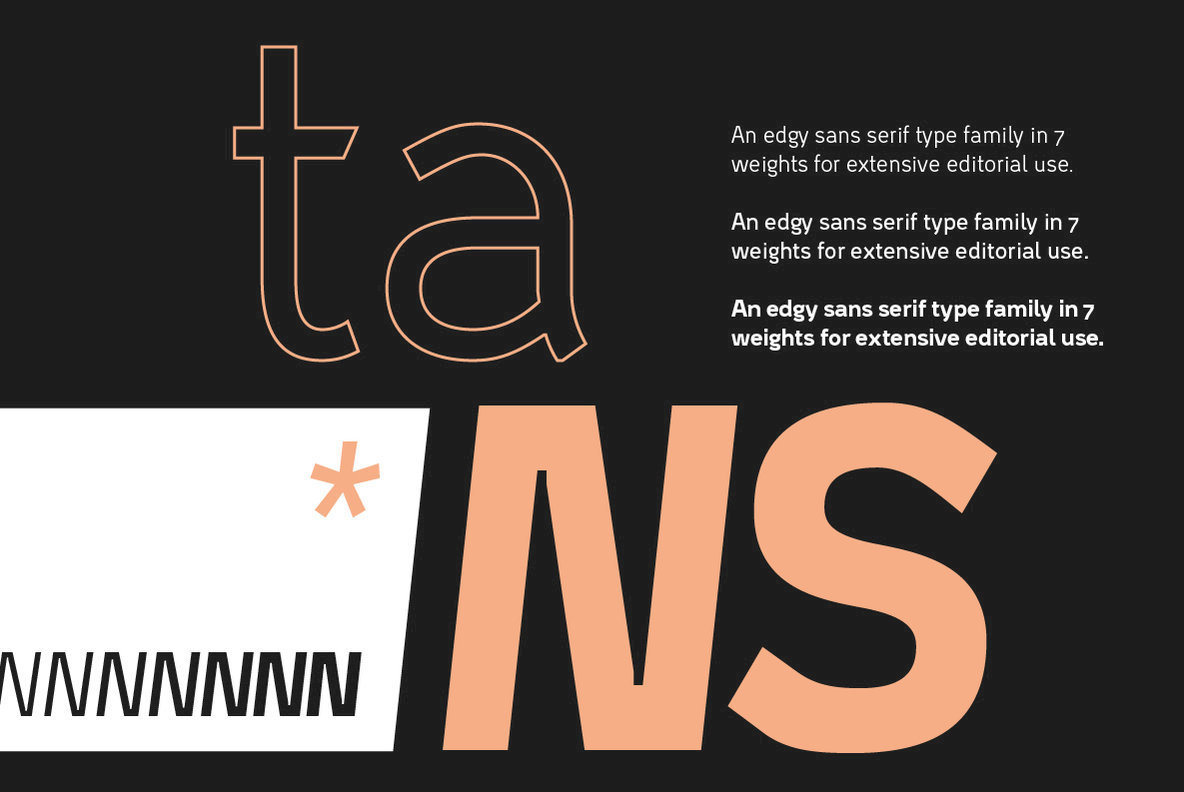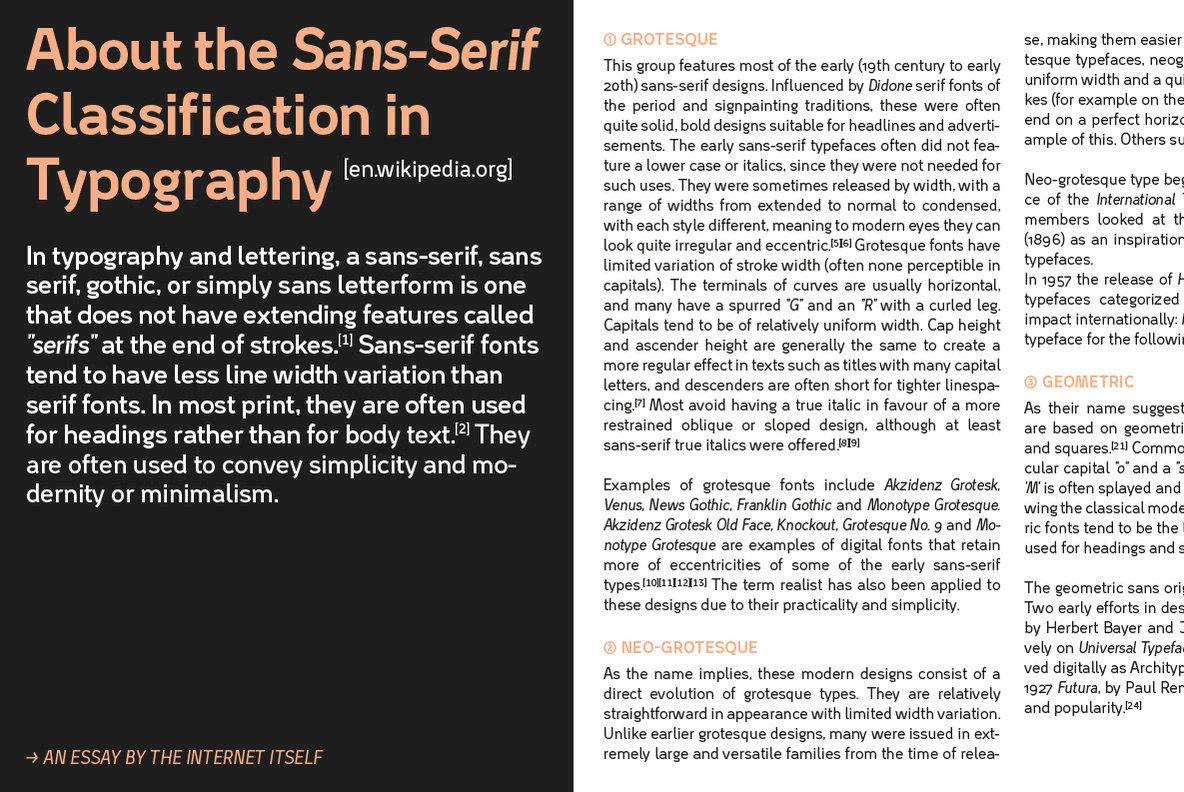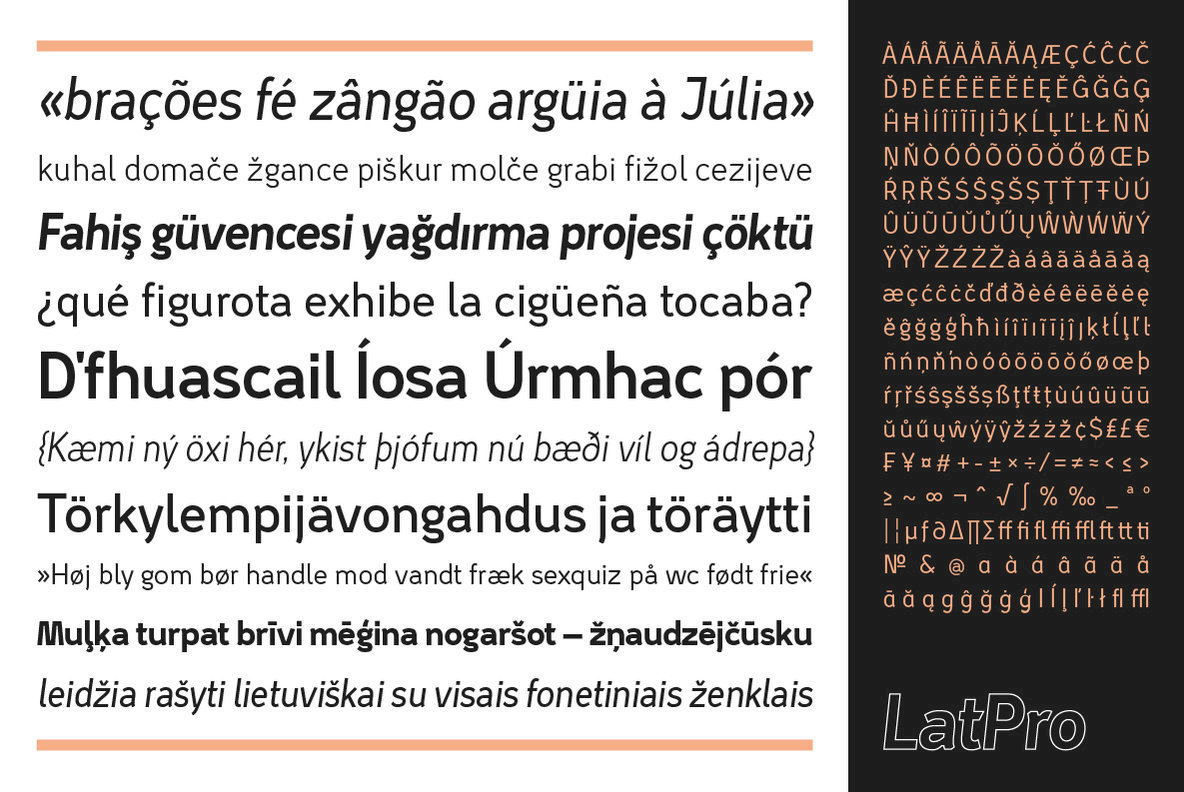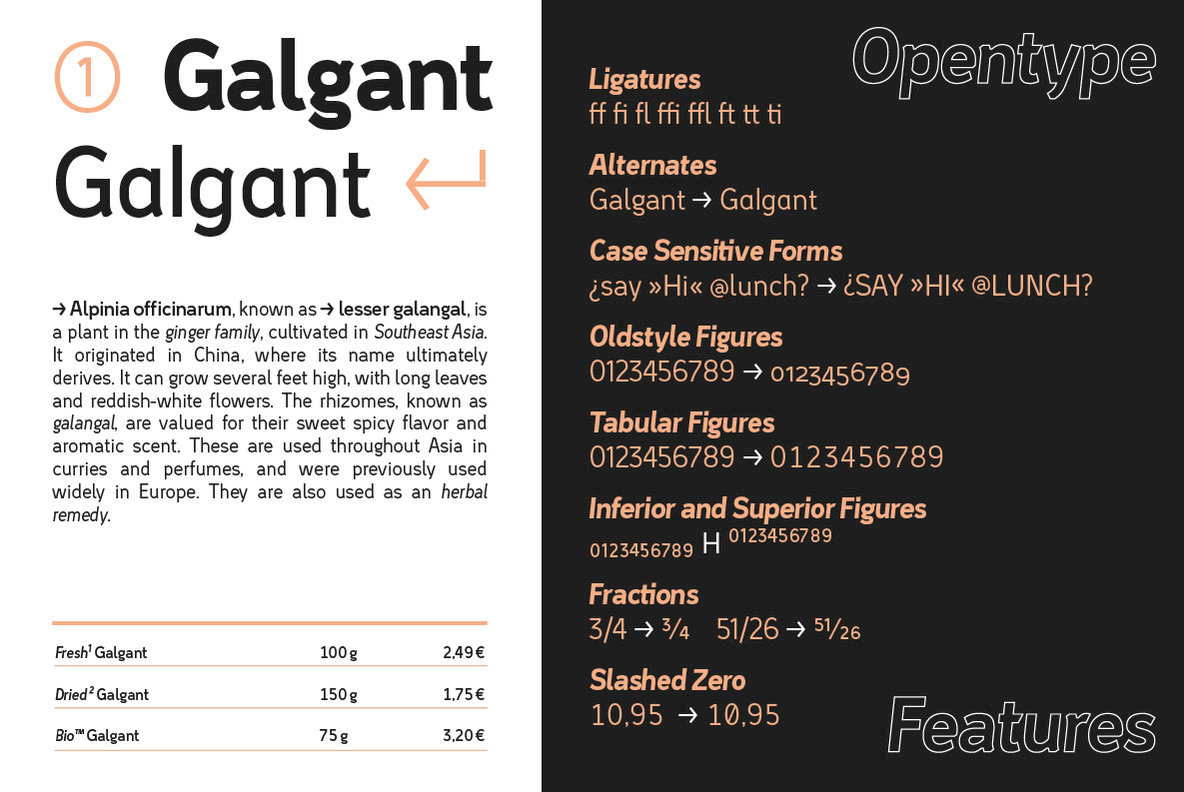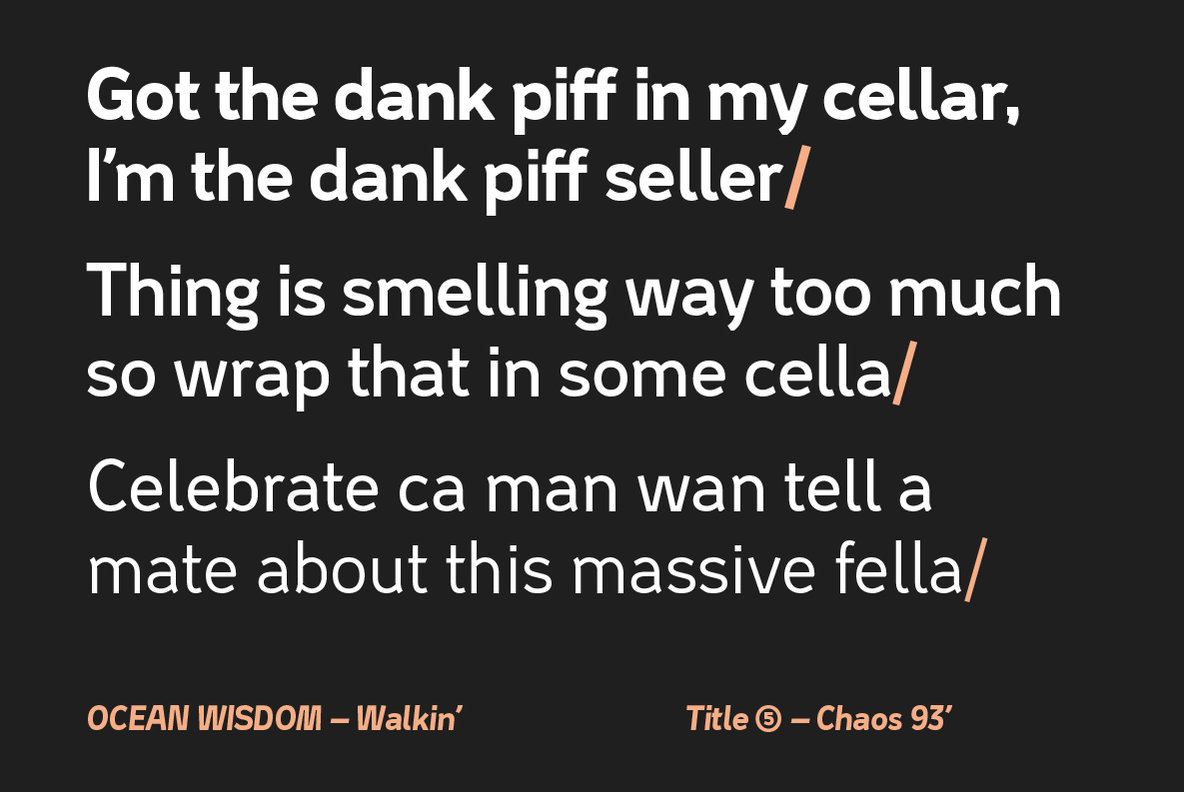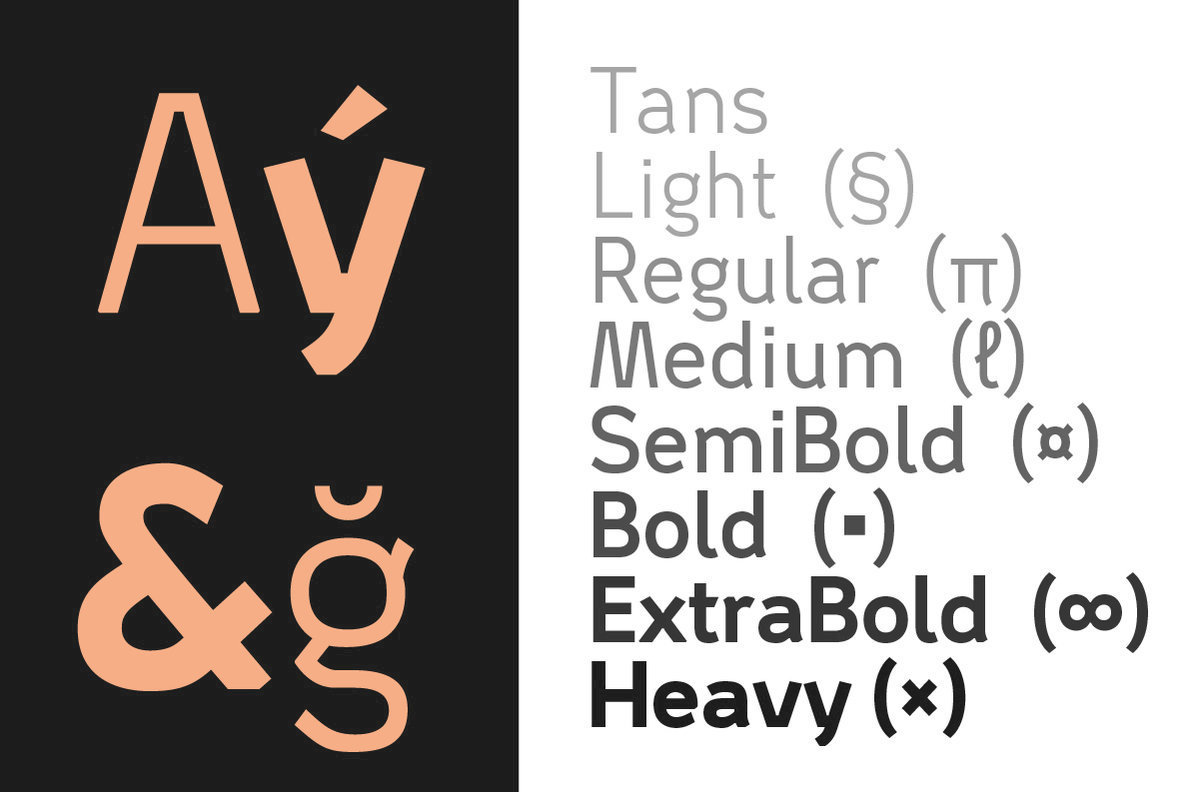
Tans Font Family
Tans originated in the idea of creating a modern, clear sans-serif with a friendly flair. The design then drove into a more heavy and edgy direction for the bolder weights.
Tans is used best in small to medium sizes, in body copy or bold captions — it’s 7 weights allow for great contrast and clear hierarchies. The extensive OpenType LatinPro character set allows multilingual type setting and the various OpenType features along with the set of arrows and circled numbers are suited perfectly for editorial use. Two stylistic sets let you switch between alternate characters and easily access special glyphs.